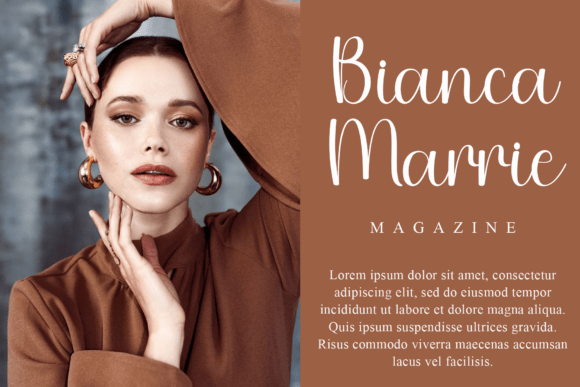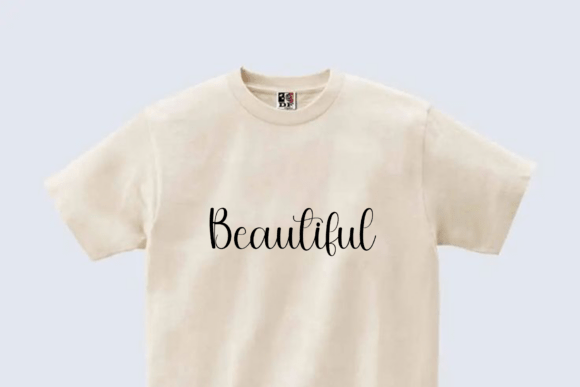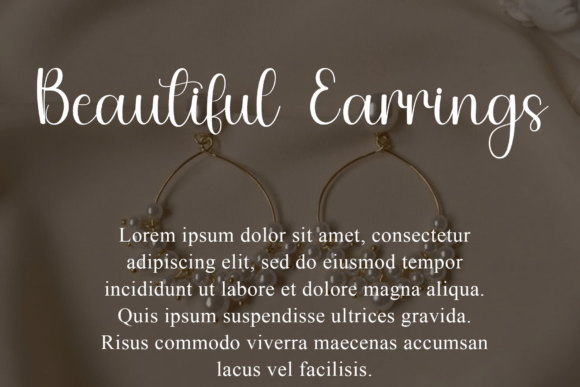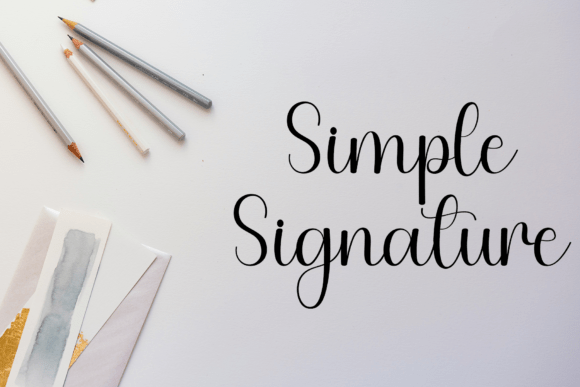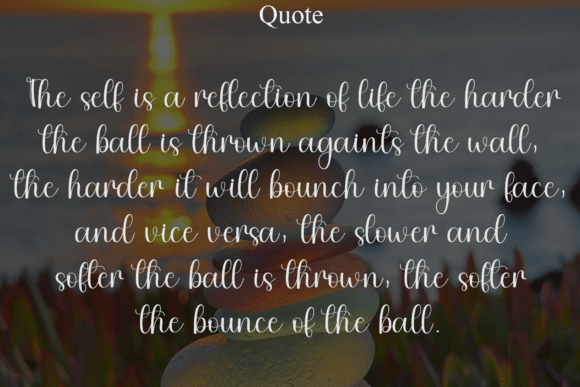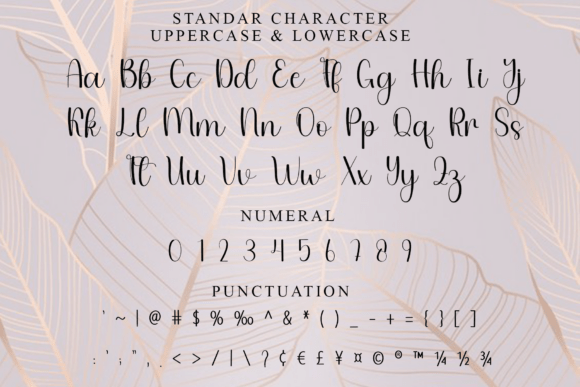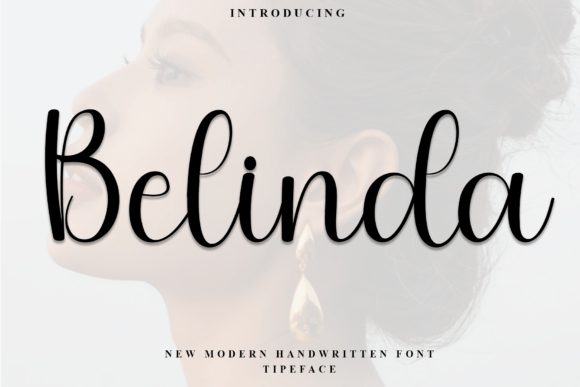
Introducing Belinda Font: The Ultimate Holiday Typeface
The holiday season is upon us, and what better way to get into the spirit than with a festive and merry typeface? Look no further than Belinda Font, a decorative and whimsical font that’s perfect for adding a touch of enchantment to your designs. Whether you’re a designer, crafter, or simply someone who loves the magic of the holiday season, Belinda Font is sure to bring a cheerful and nostalgic ambiance to your words.
Belinda Font is a carefully crafted typeface that’s designed to capture the essence of the holiday season. With its decorative elements and whimsical flair, this font is sure to add a touch of festive fun to any design. From greeting cards and gift tags to holiday-themed projects and social media posts, Belinda Font is the perfect choice for anyone looking to add a little extra magic to their typography.
Belinda Font is a versatile typeface that’s perfect for designers and crafters of all levels. Whether you’re creating professional designs or simply crafting for fun, this font is easy to use and adaptable to a wide range of projects. With its PUA encoding, you can access all of the amazing glyphs and ligatures with ease, making it simple to create beautiful and unique designs.
Key Features of Belinda Font
- PUA Encoded: Belinda Font is PUA encoded, which means you can access all of the amazing glyphs and ligatures with ease.
- Decorative Elements: This font features a range of decorative elements, including swashes, flourishes, and other whimsical details.
- Whimsical Flair: Belinda Font has a playful and whimsical feel that’s perfect for adding a touch of festive fun to your designs.
- Festive and Merry: This font is designed to capture the spirit of the holiday season, making it perfect for greeting cards, gift tags, and other holiday-themed projects.
Uses for Belinda Font
Belinda Font is a versatile typeface that can be used in a wide range of projects, including:
- Greeting Cards: Add a touch of festive fun to your holiday greeting cards with Belinda Font.
- Gift Tags: Create beautiful and unique gift tags with this whimsical font.
- Holiday-Themed Projects: From Christmas decorations to Halloween-themed crafts, Belinda Font is perfect for adding a touch of festive fun to your projects.
- Social Media Posts: Add a little extra magic to your social media posts with this festive and merry typeface.
- Unique and Eye-Catching: Belinda Font is a unique and eye-catching typeface that’s sure to stand out in any design.
- Easy to Use: With its PUA encoding, Belinda Font is easy to use and adaptable to a wide range of projects.
- Festive and Merry: This font is designed to capture the spirit of the holiday season, making it perfect for adding a touch of festive fun to your designs.
Belinda Font is a festive and merry typeface that’s perfect for adding a touch of enchantment to your designs. With its decorative elements and whimsical flair, this font is sure to bring a cheerful and nostalgic ambiance to your words. Whether you’re a designer, crafter, or simply someone who loves the magic of the holiday season, Belinda Font is the perfect choice for anyone looking to add a little extra magic to their typography. So why wait? Download Belinda Font today and let your typography shine with the magic of this beautiful font!